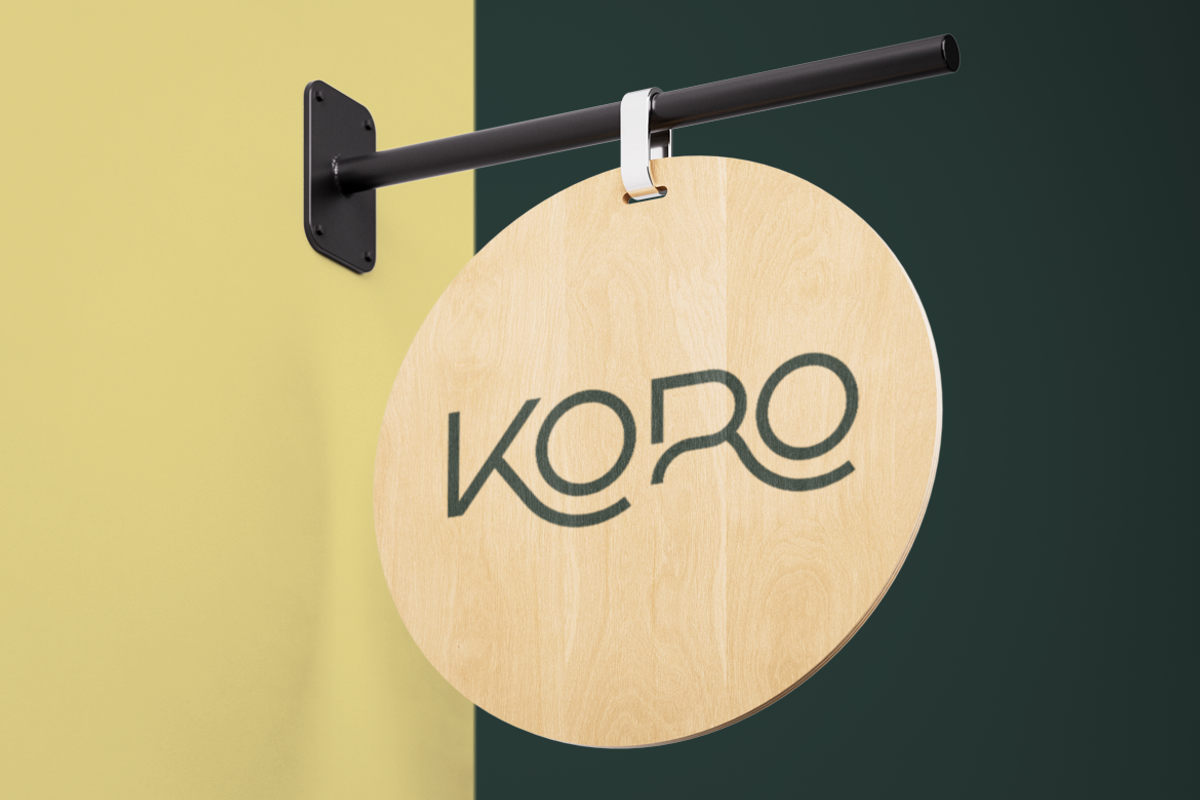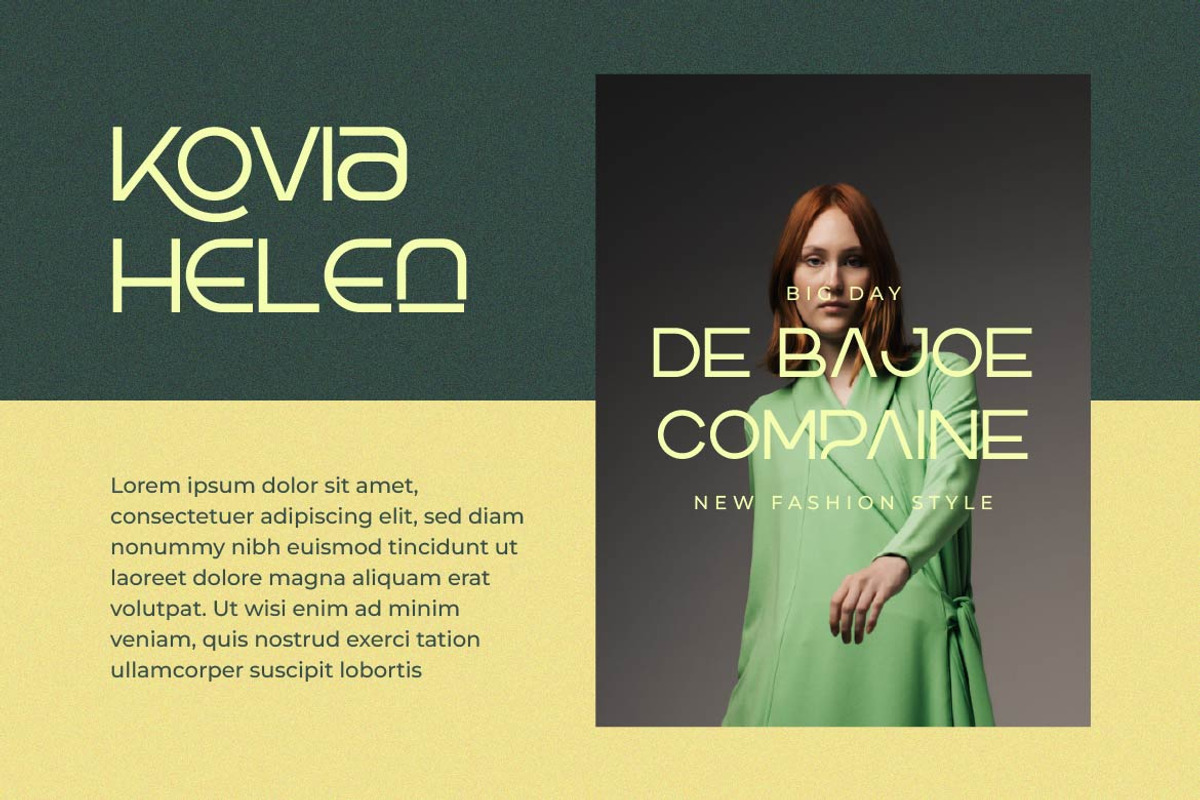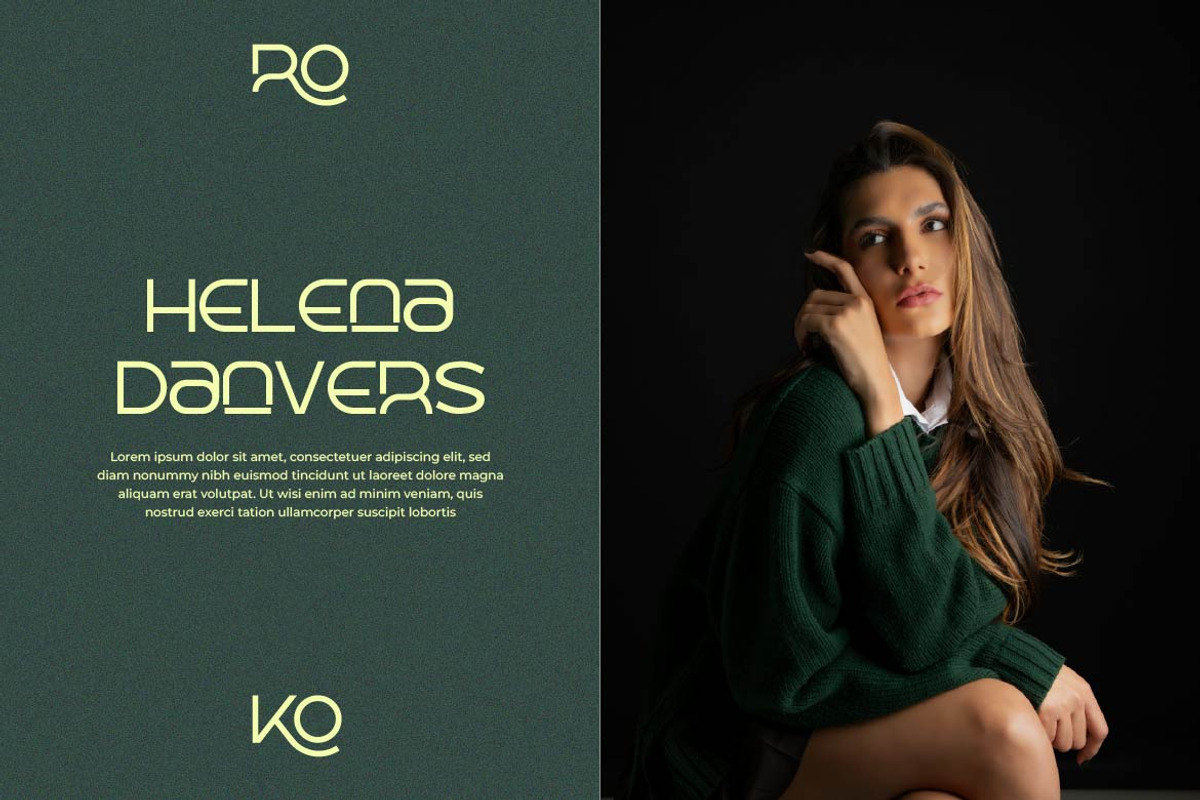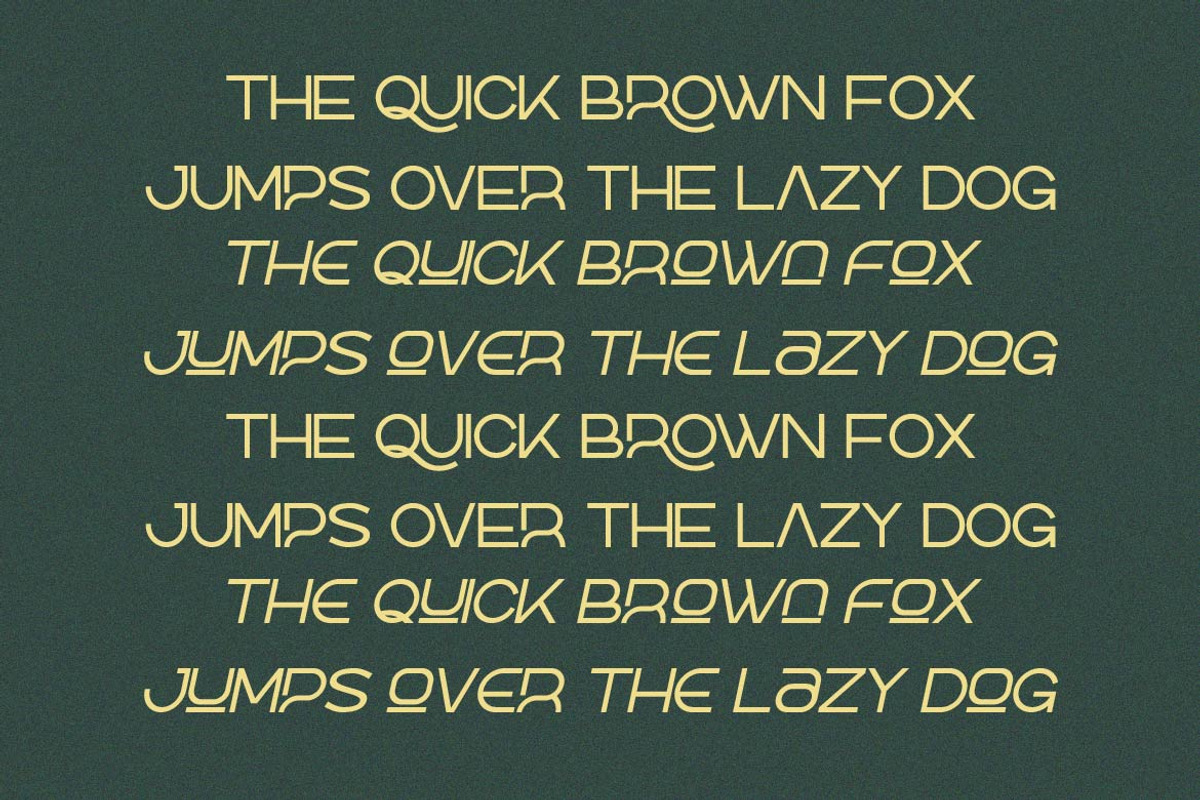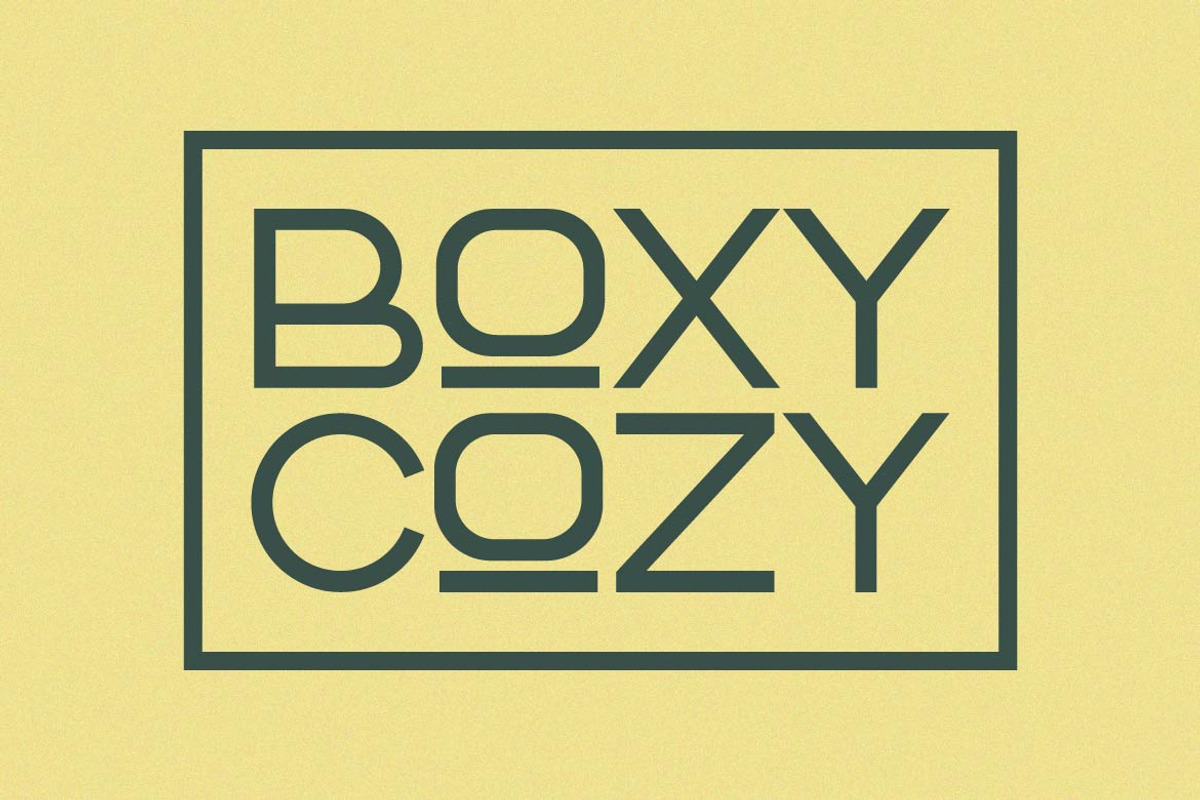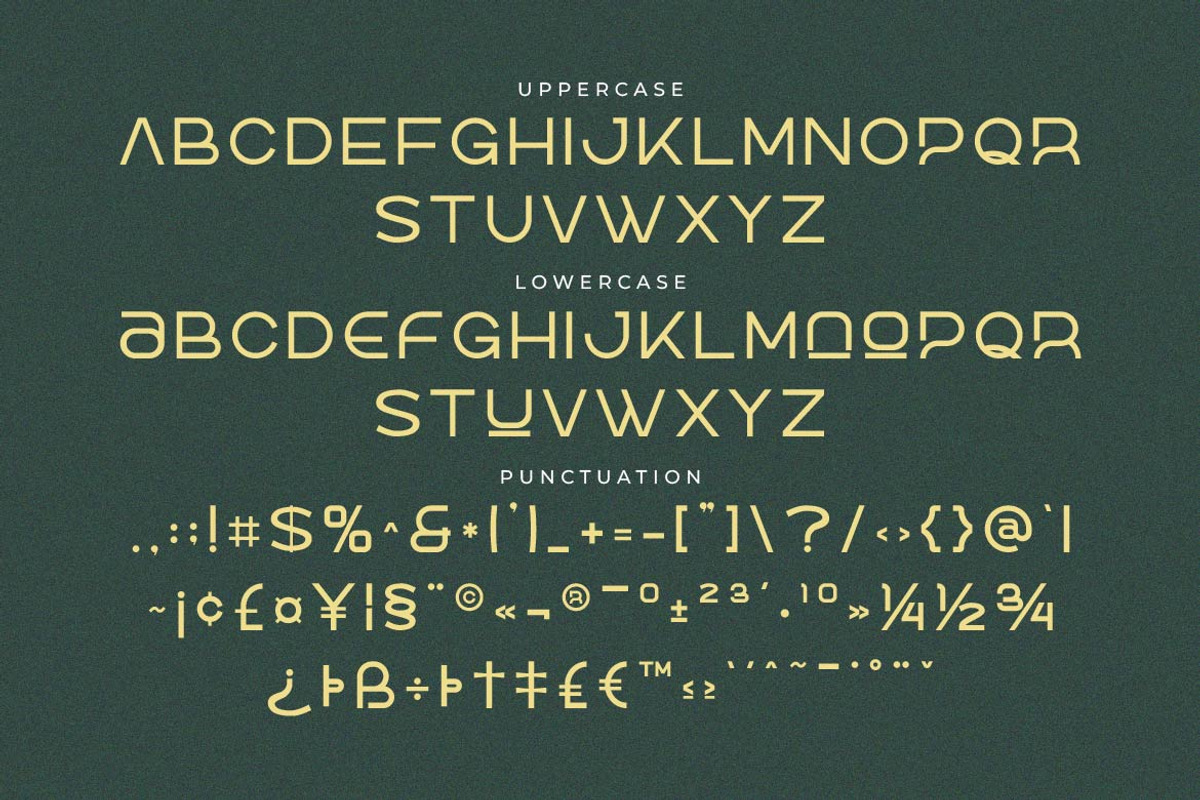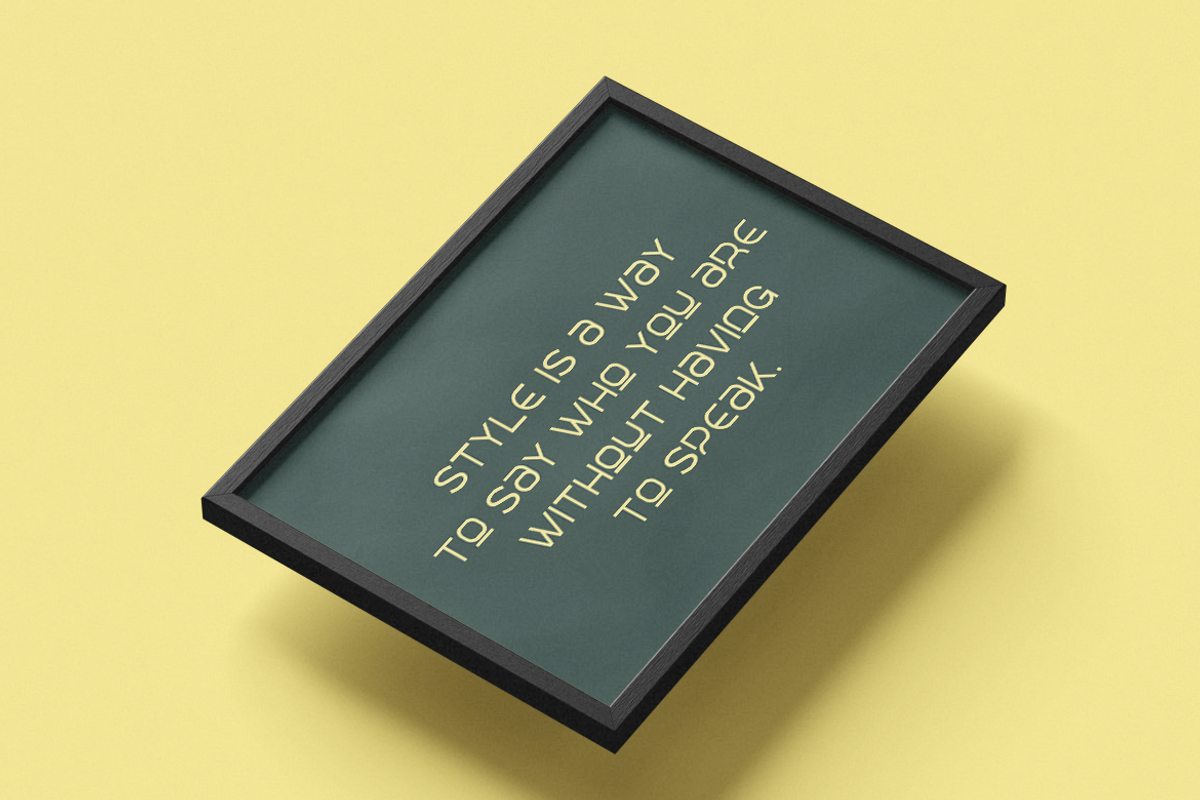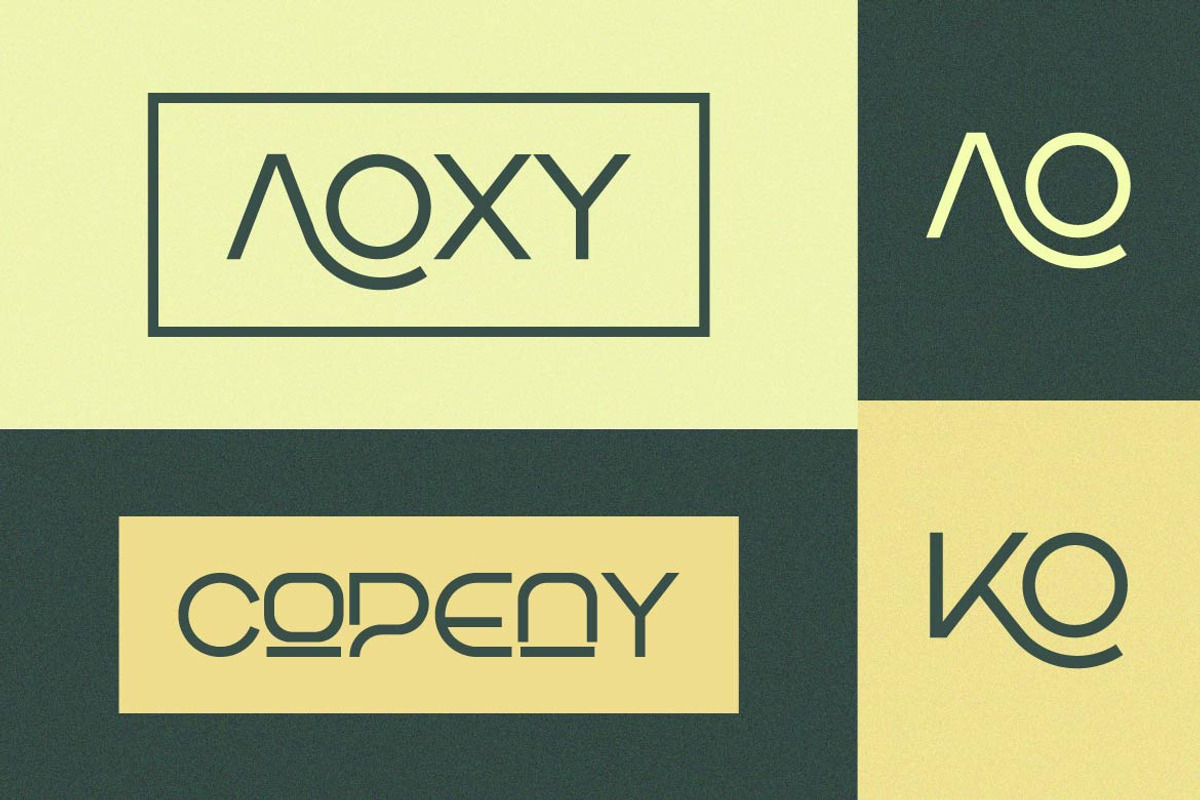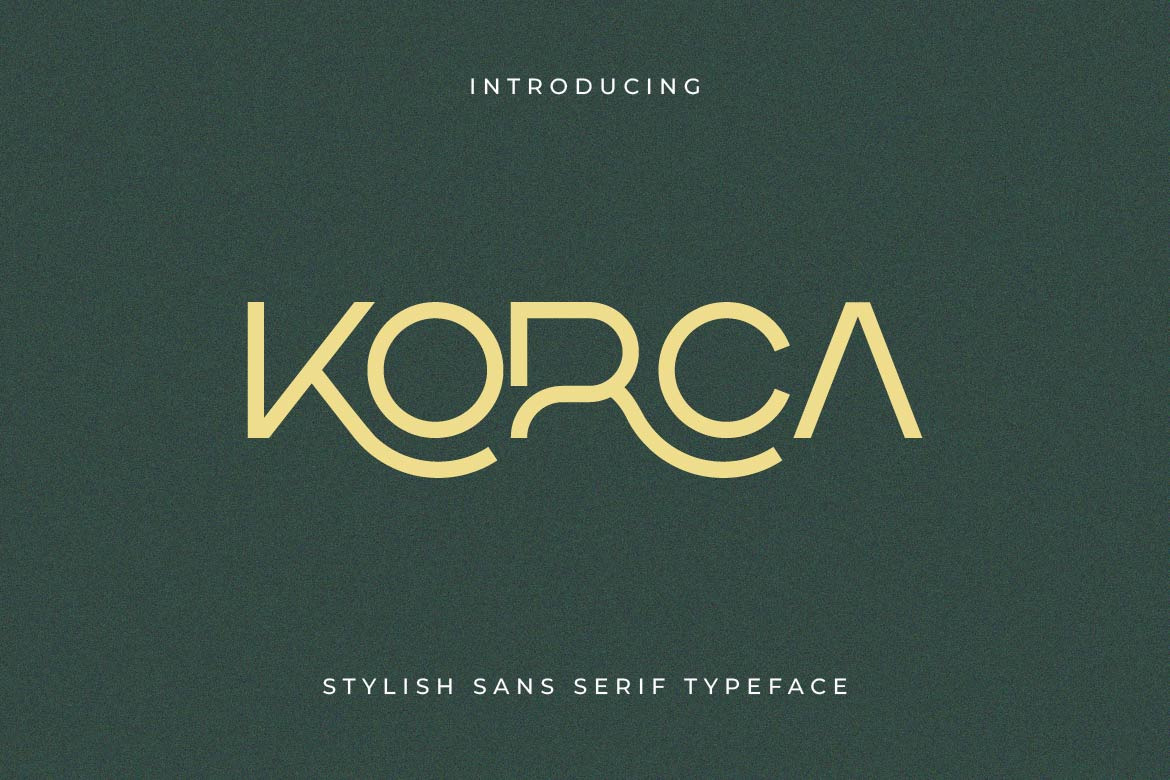
Korca – Fashion Geometric Font
Korca is a stylish geometric sans serif font that combines clean circular forms with distinctive custom letterforms. Its smooth curves, elegant proportions, and subtle geometric details create a refined personality that feels modern, artistic, and effortlessly sophisticated.
Designed for fashion branding, beauty identities, logos, editorial layouts, packaging, posters, magazines, social media graphics, and creative campaigns, Korca brings a distinctive visual character to both premium and contemporary projects.
Its unique construction makes ordinary words feel more expressive while maintaining the clarity and simplicity expected from a modern sans serif. From a minimalist wordmark to a sophisticated fashion headline, Korca gives designers a versatile typographic voice with a recognizable personality.
Korca — a stylish geometric sans serif for distinctive modern design.
Ton of glyphs